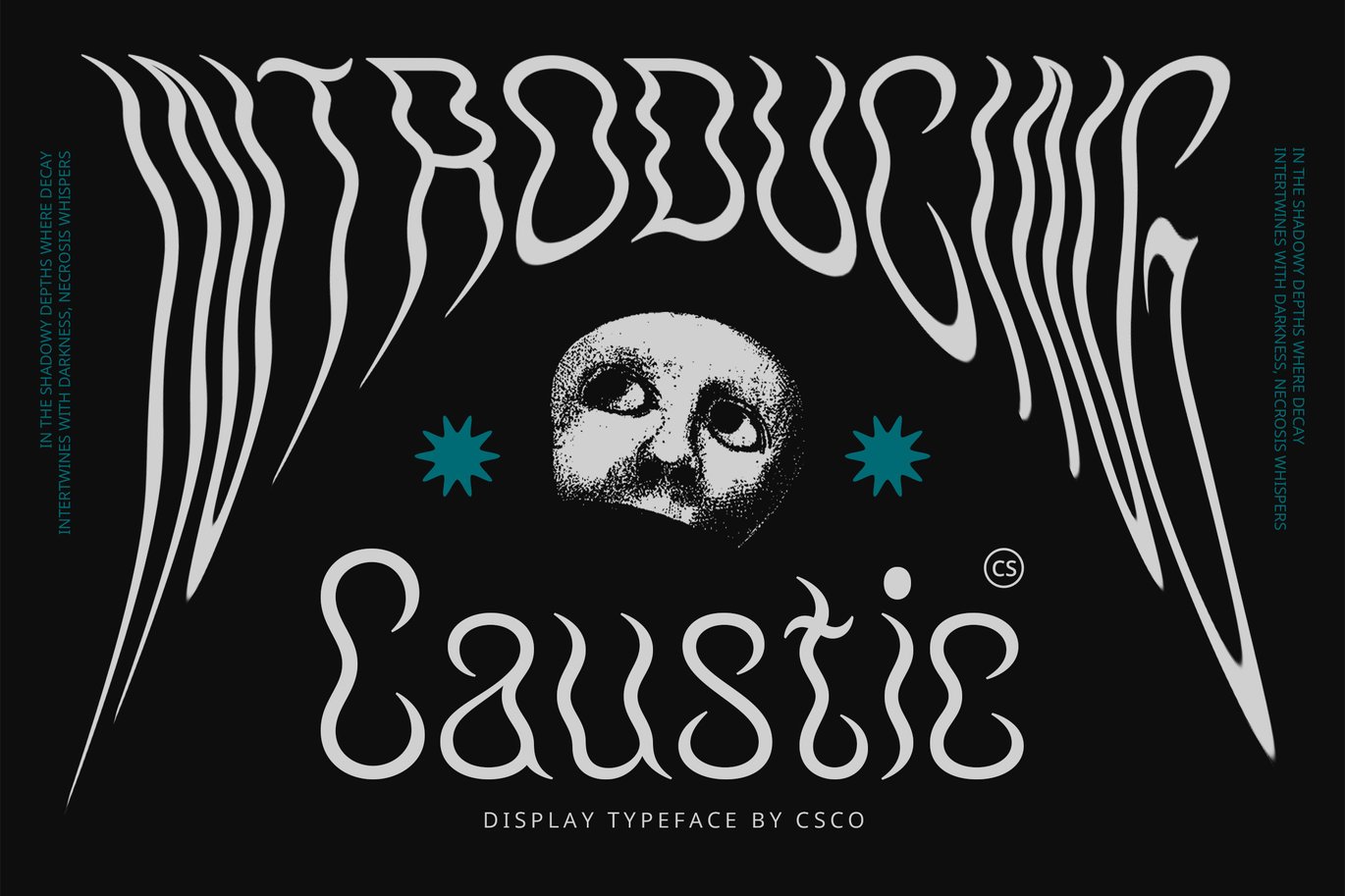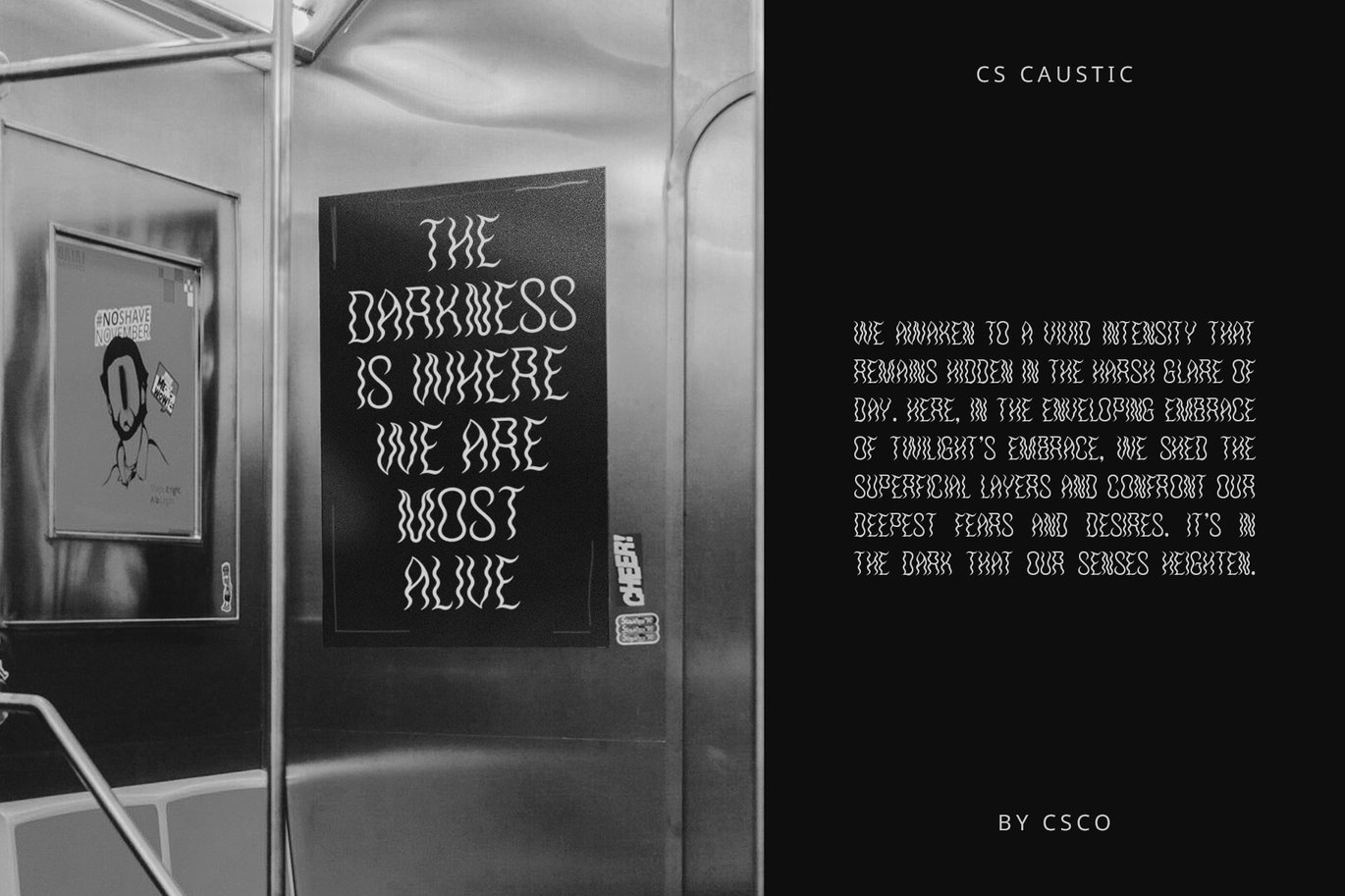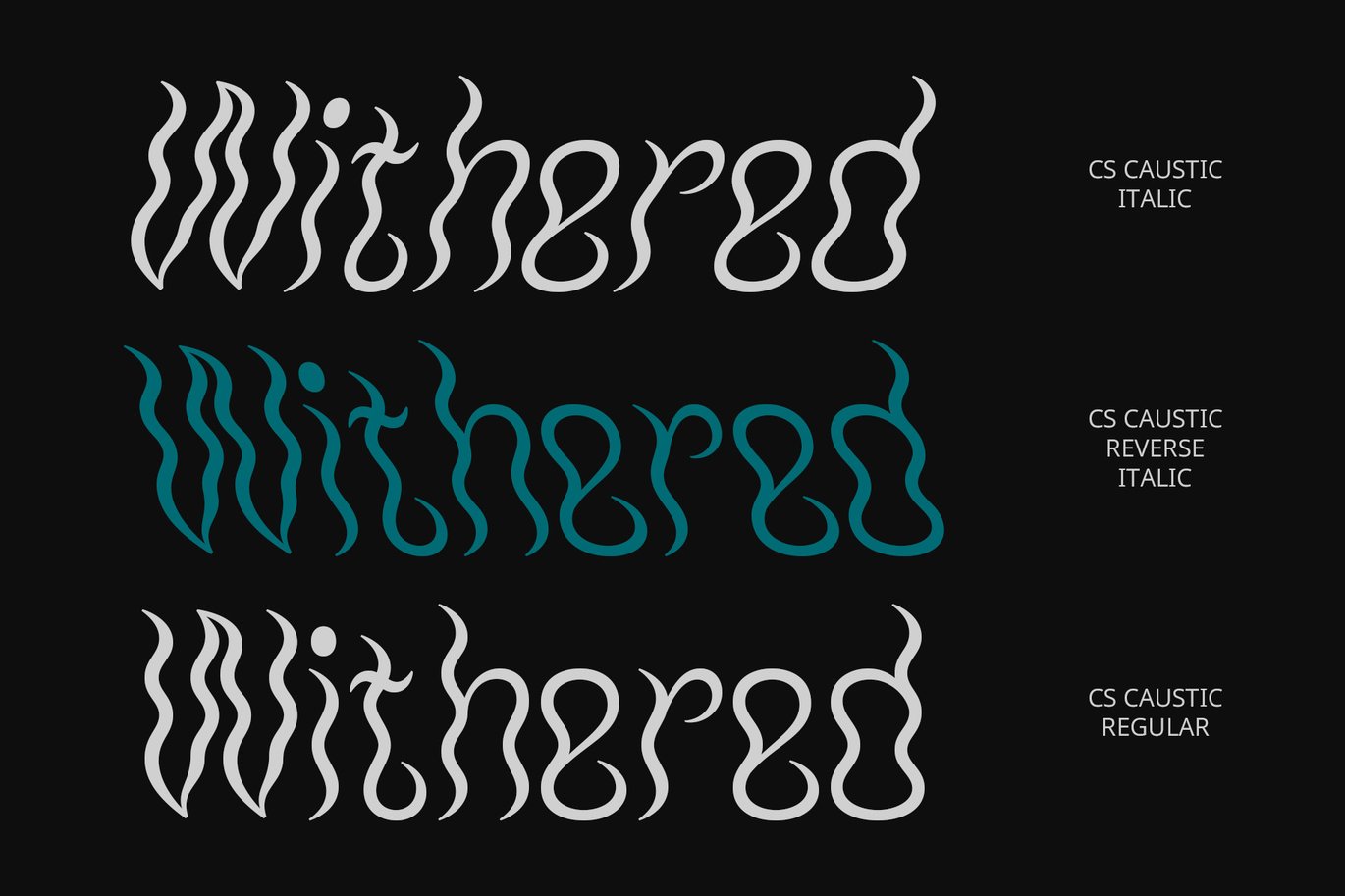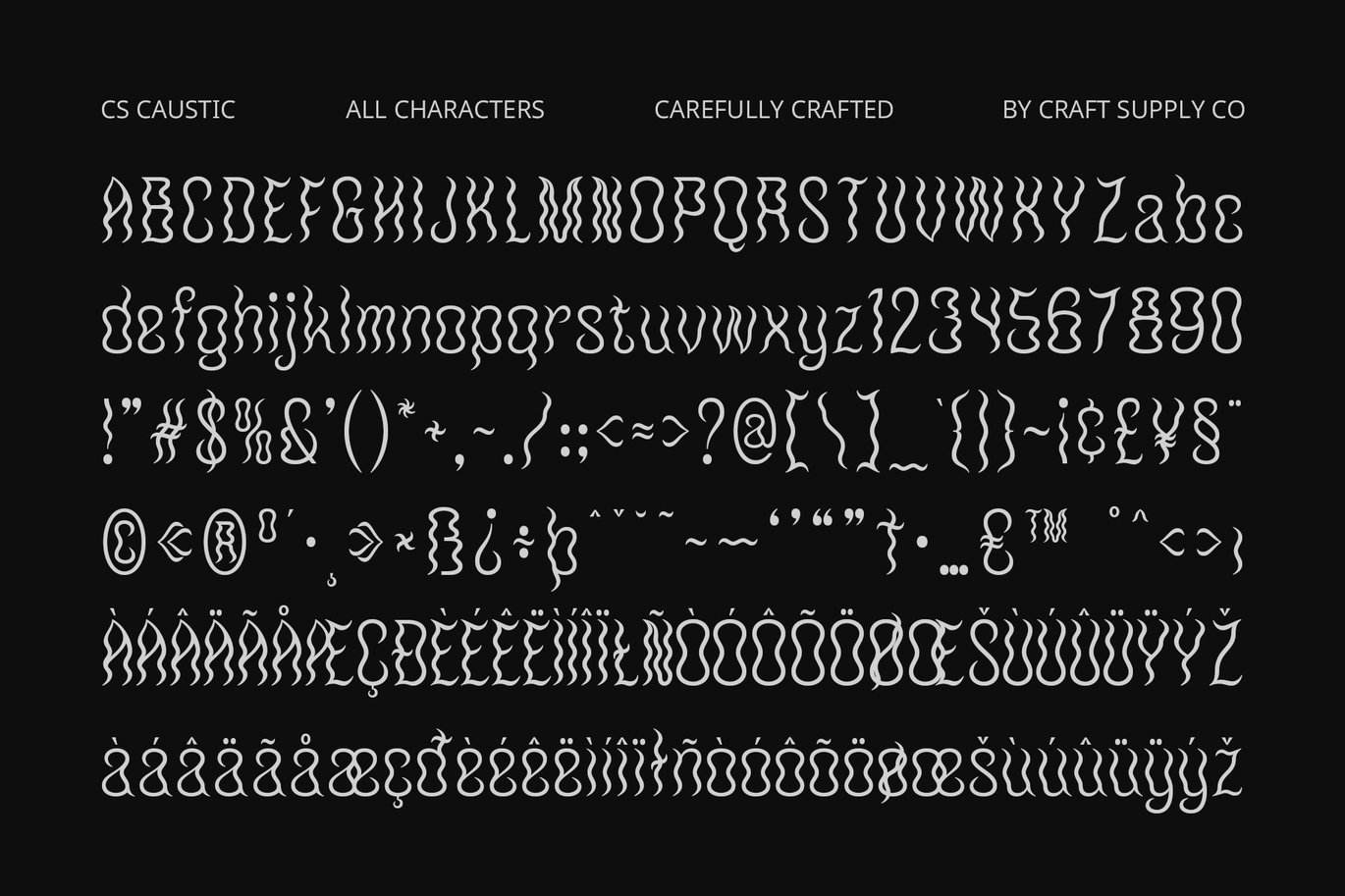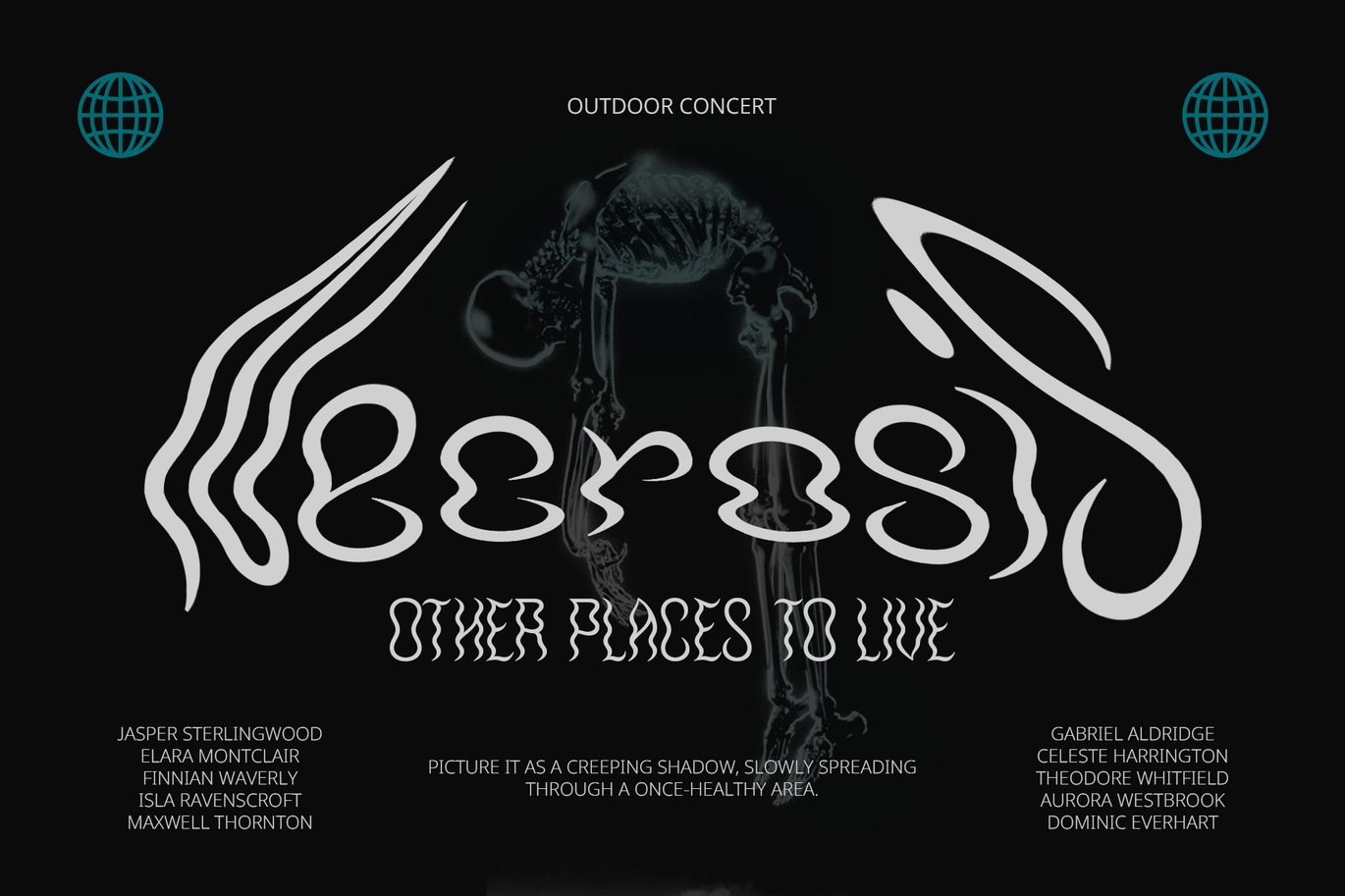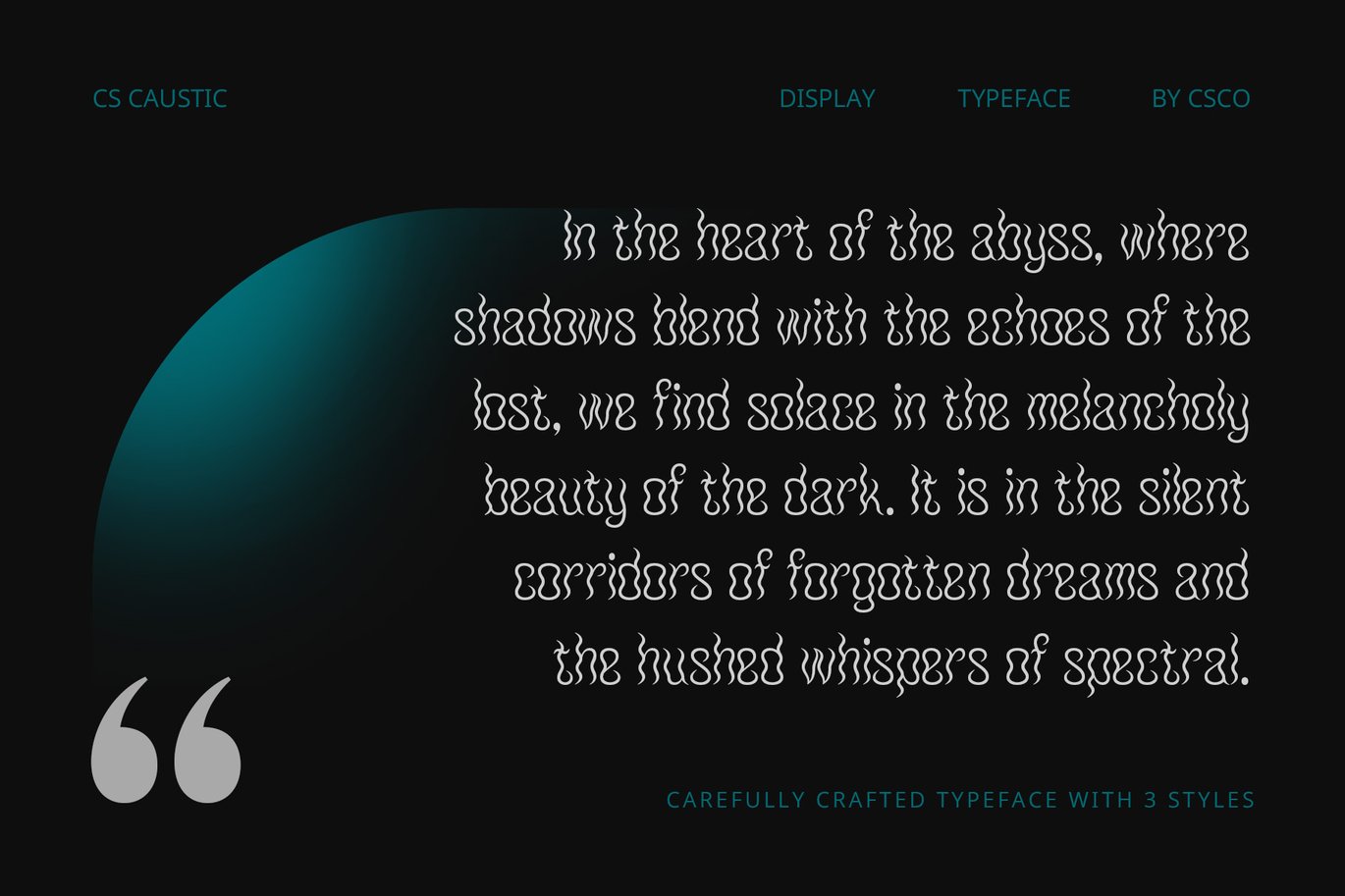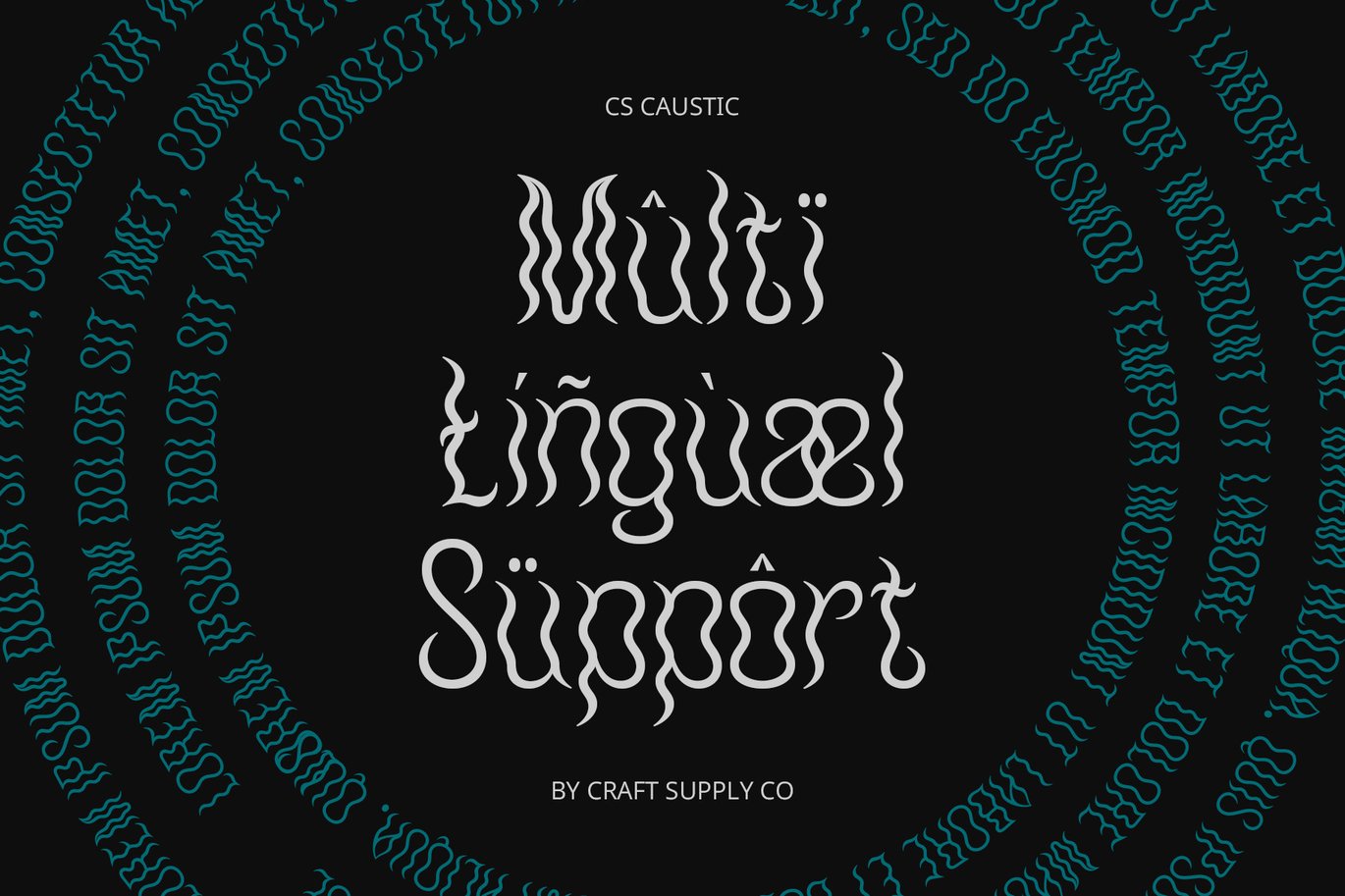
Caustic – Psychedelic Font
CS Caustic – Psychedelic Font: Vibrant Expression with a Funky Twist
Modern Display with Psychedelic Flair
CS Caustic is a modern display font that infuses psychedelic and funky elements into its design. Psychedelic style, inspired by the visual aesthetics of the 1960s and 1970s, is characterized by letters that curve, wave, and distort, creating a dynamic and visually engaging effect. This font embraces the bold and expressive nature of psychedelic art, offering a fresh and energetic look.
Funky Creativity for a Unique Appeal
The funky aspect of CS Caustic brings an additional layer of cheerfulness and creativity. The letters feature unconventional characters with playful patterns and bright colors, adding a lively and distinctive touch to any design. This combination of psychedelic and funky elements results in a font that’s both eye-catching and unique, perfect for capturing attention and sparking interest.
Ideal for Energetic and Creative Projects
CS Caustic is perfect for designs that need to make a statement and stand out. Its vibrant and expressive style makes it ideal for music posters, creative event promotions, and any material that aims to project an energetic and distinctive vibe. Whether you’re looking to evoke the spirit of a bygone era or simply add a touch of bold creativity, CS Caustic delivers a memorable and engaging visual experience.